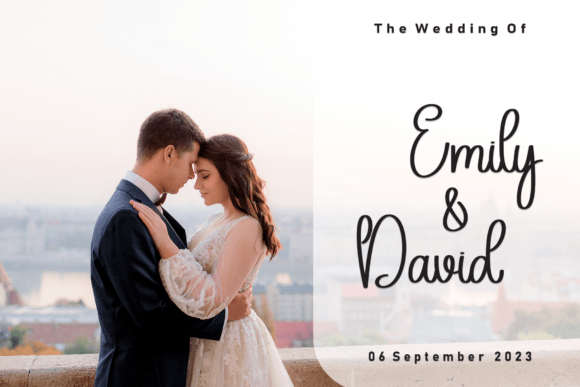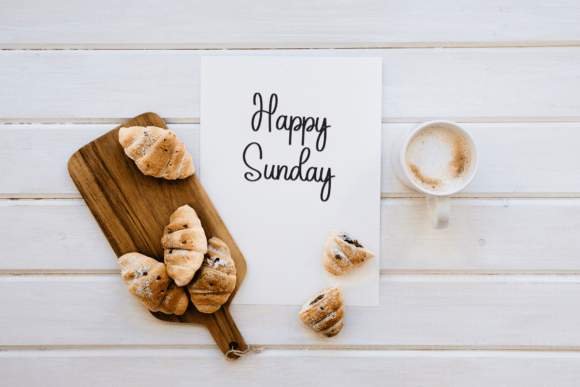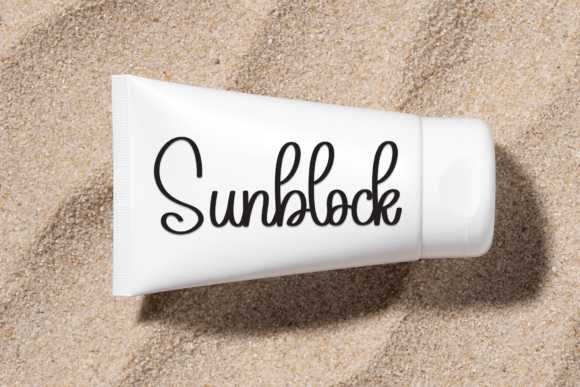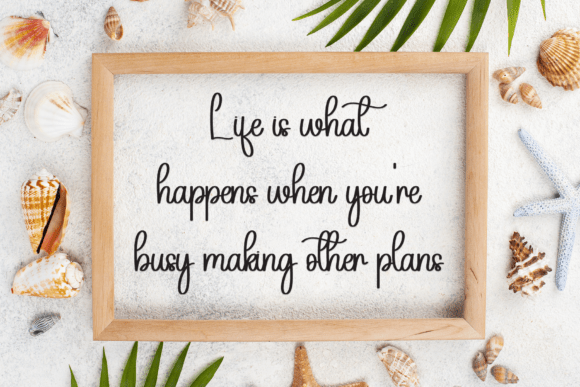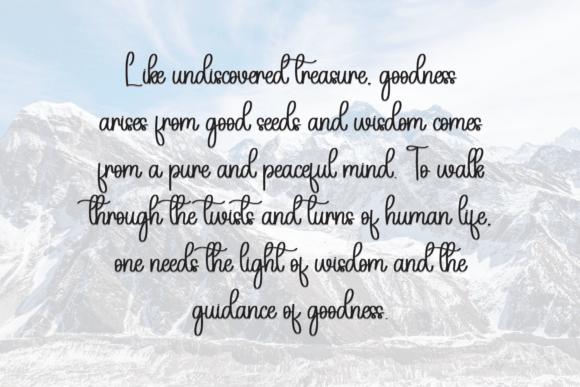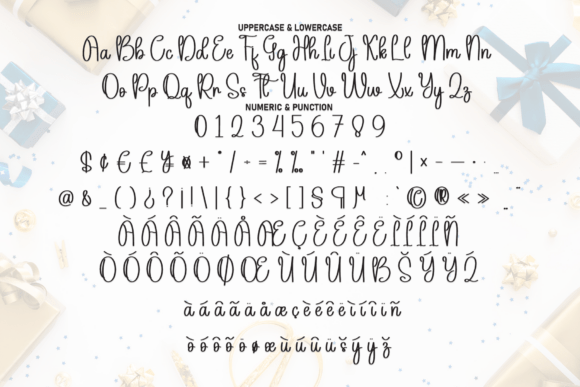
The Magic of Hand-Drawn Lettering: Discover the Birthday Font
Who hasn’t felt that rush of excitement when brainstorming ideas for a creative project, only to have the perfect concept click into place? For designers, this moment is a thrill unlike any other – and it’s exactly what inspired us to dive into the world of stylish script fonts. Among them stands out the Birthday Font, a true masterpiece that captures the essence of hand-painted calligraphy with a modern twist.
Designed to elevate your designs, the Birthday Font is perfect for logos, invitations, packaging, and social media graphics. Its fluid brush strokes, dynamic curves, and expressive letterforms make it a valuable addition to any designer’s toolkit, adding a creative and sophisticated touch to any project. Whether you’re a seasoned pro or just starting out, the Birthday Font is an essential tool for anyone looking to bring a personal touch to their work.
Birthday Font Key Features
- Unique Characteristics: Features celebratory and festive design elements, including balloons, candles, and confetti, to create a joyful atmosphere.
- Script and Style Options: Includes various script and style options, such as cursive, bold, and italic, to accommodate different design needs.
Birthday Font Review
Overall, I’d say the Birthday Font is a fun and playful option for any celebratory design. ✨ Its bold, cursive script is reminiscent of handwritten cards and adds a personal touch to any project. I love how it’s perfect for birthdays, weddings, and other special occasions.
One of the things that works well with the Birthday Font is its versatility. ✨ It comes in a range of sizes, from small to large, making it easy to use in various design contexts. The font is also highly customizable, allowing you to adjust the color, spacing, and other elements to fit your project’s needs.
- ⚠️ Limited to celebratory designs: While the font is perfect for birthdays, weddings, and other special occasions, it may not be the best choice for everyday designs.
- ⚠️ May be too bold: Depending on the design context, the font may be too bold or overpowering. In these cases, it’s best to use it in moderation or pair it with other fonts to balance out the design.
Overall, I’d give the Birthday Font 4 out of 5 stars. It’s a fun and playful option that’s perfect for celebratory designs, but may not be the best choice for everyday projects. With a little creativity and customization, it can be a great addition to any design.
Tips for Getting the Most Out of the Birthday Font
Use the Birthday Font to add a celebratory touch to your designs. Experiment with different font sizes, colors, and styles to create a unique look.
Common use cases include birthday invitations, party decorations, and social media posts.